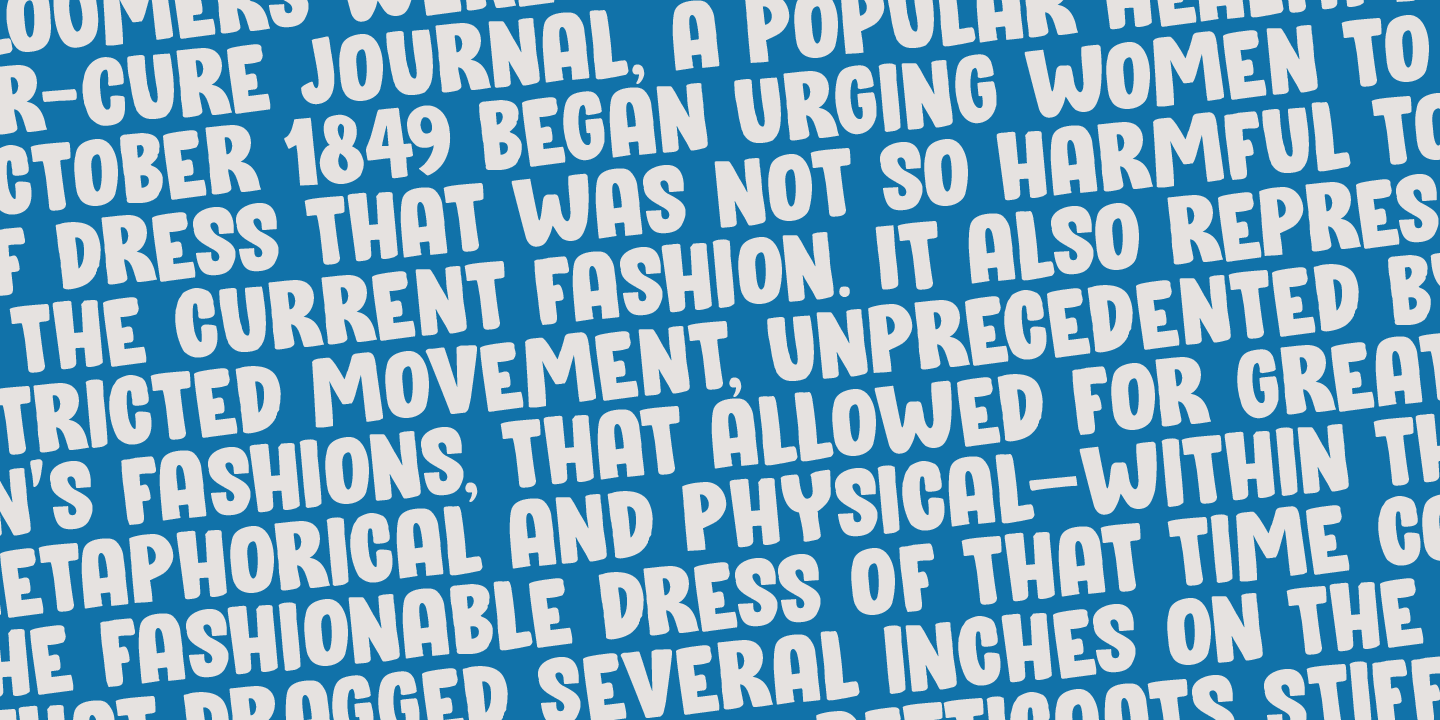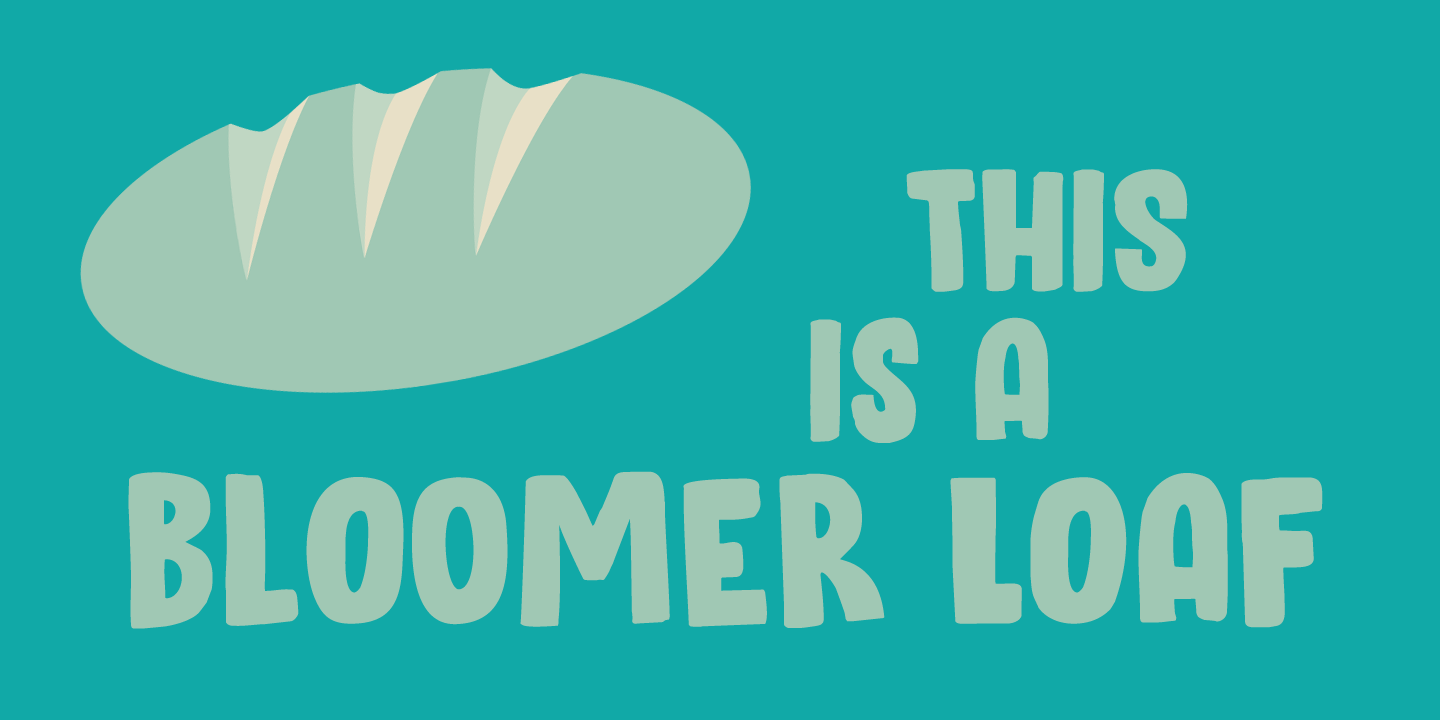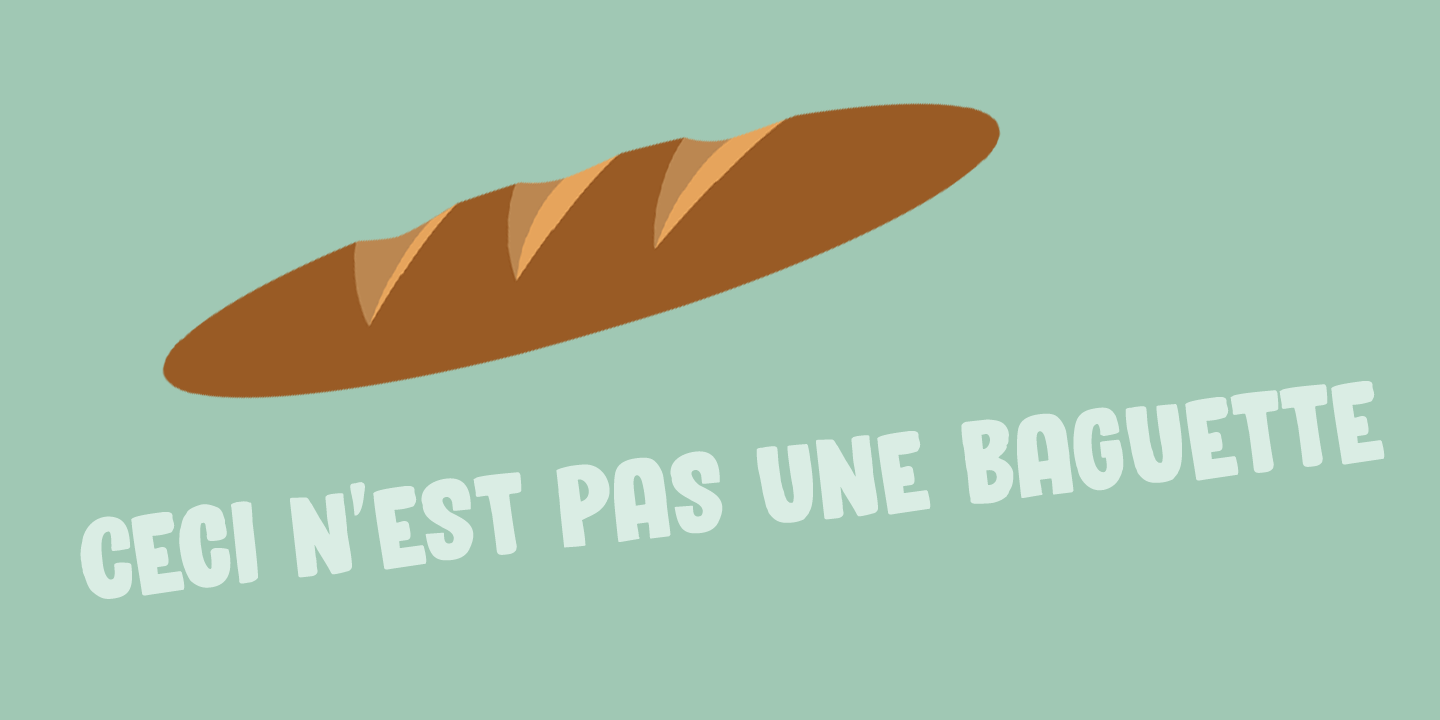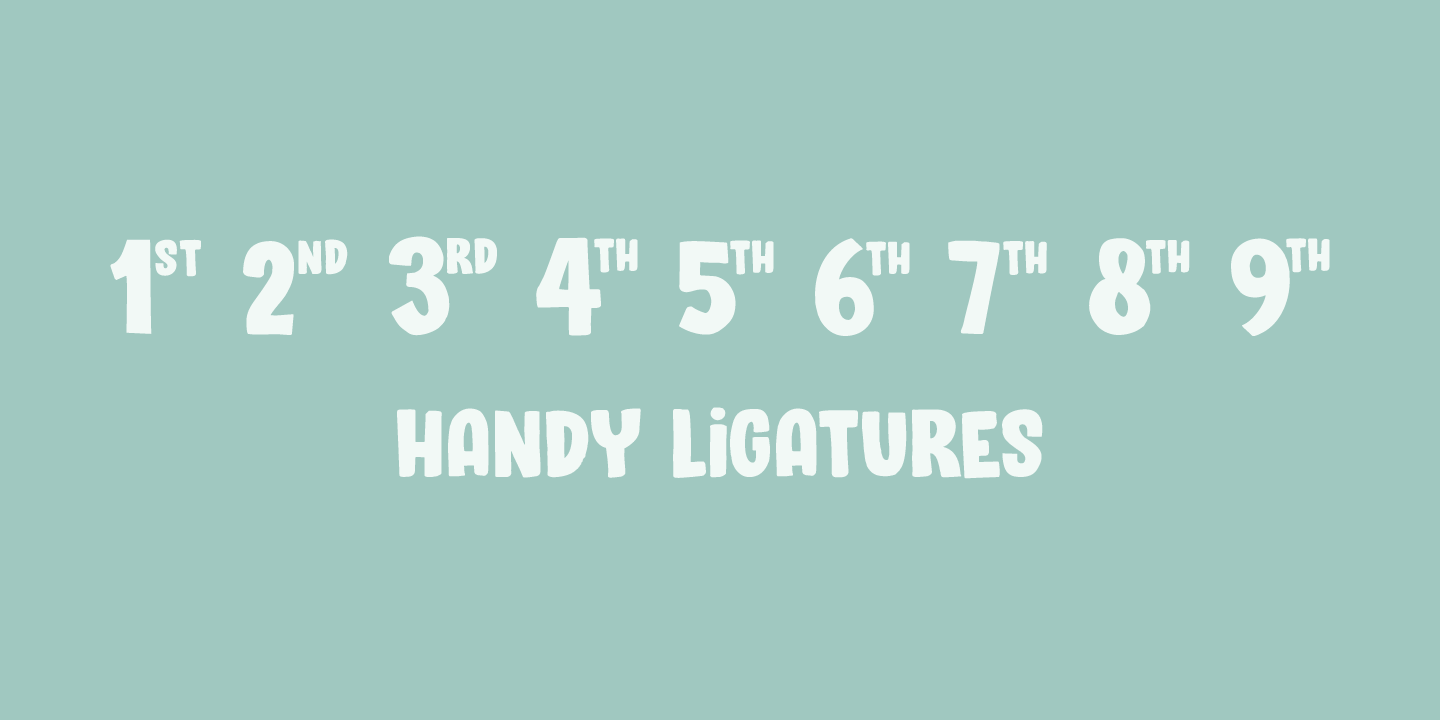
About Bloomer
A Bloomer is a crusty loaf of bread with rounded ends. I don\’t know why I chose this name, but it may have to do with the fact that my wife signed up for a bread baking course. Bloomer is a rounded, hand made cartoon-ish font. It will look especially…